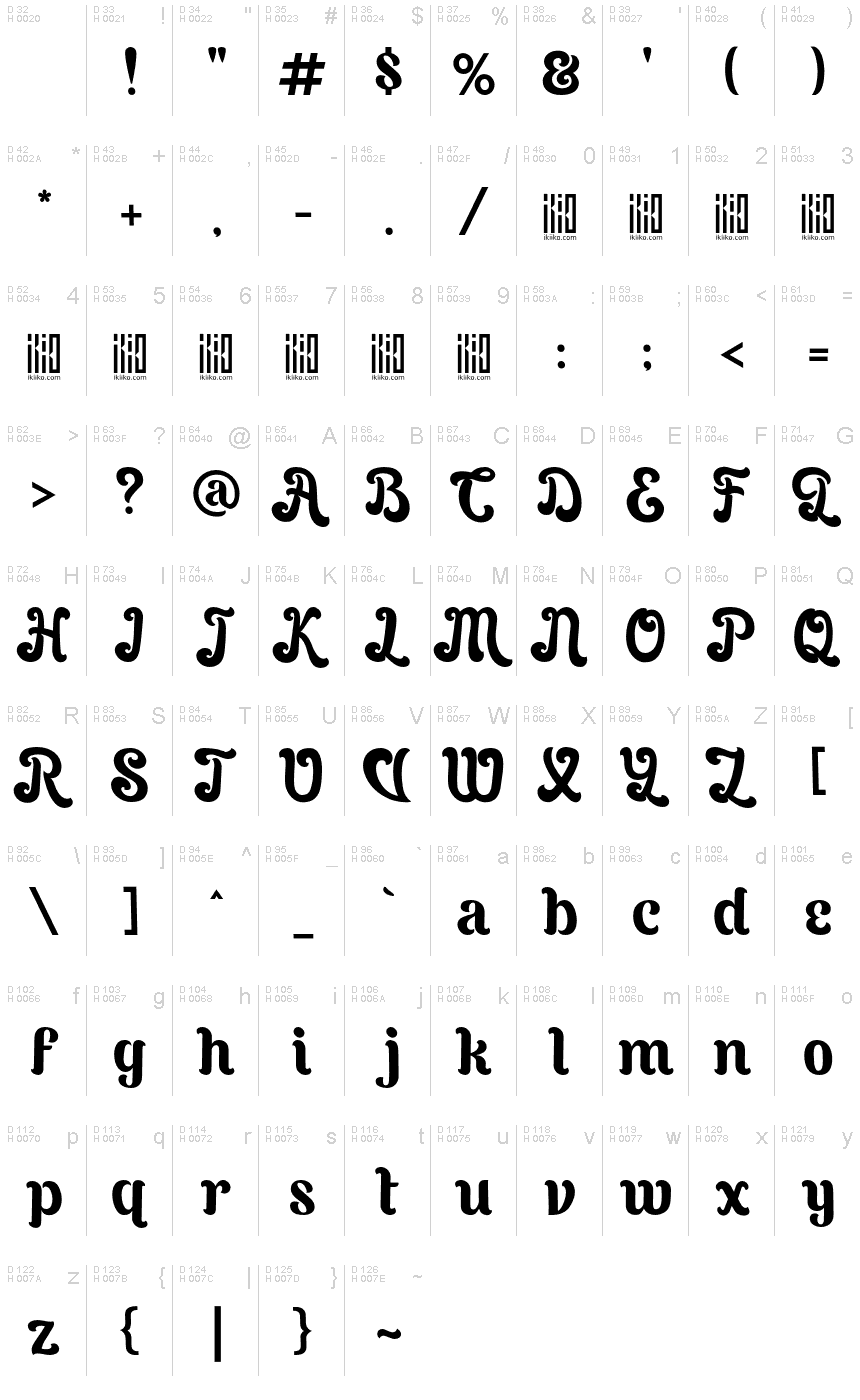
The Archies font by ikiiko is a bold and groovy display font perfect for creating eye-catching headlines and designs. It adds a unique style to projects ranging from vintage posters to modern logos.